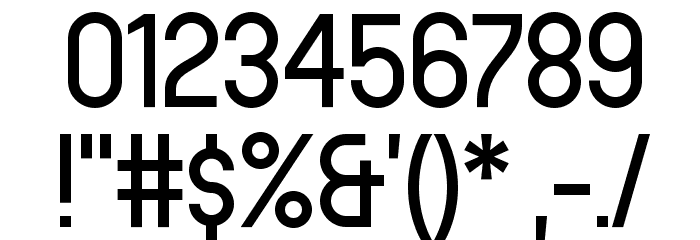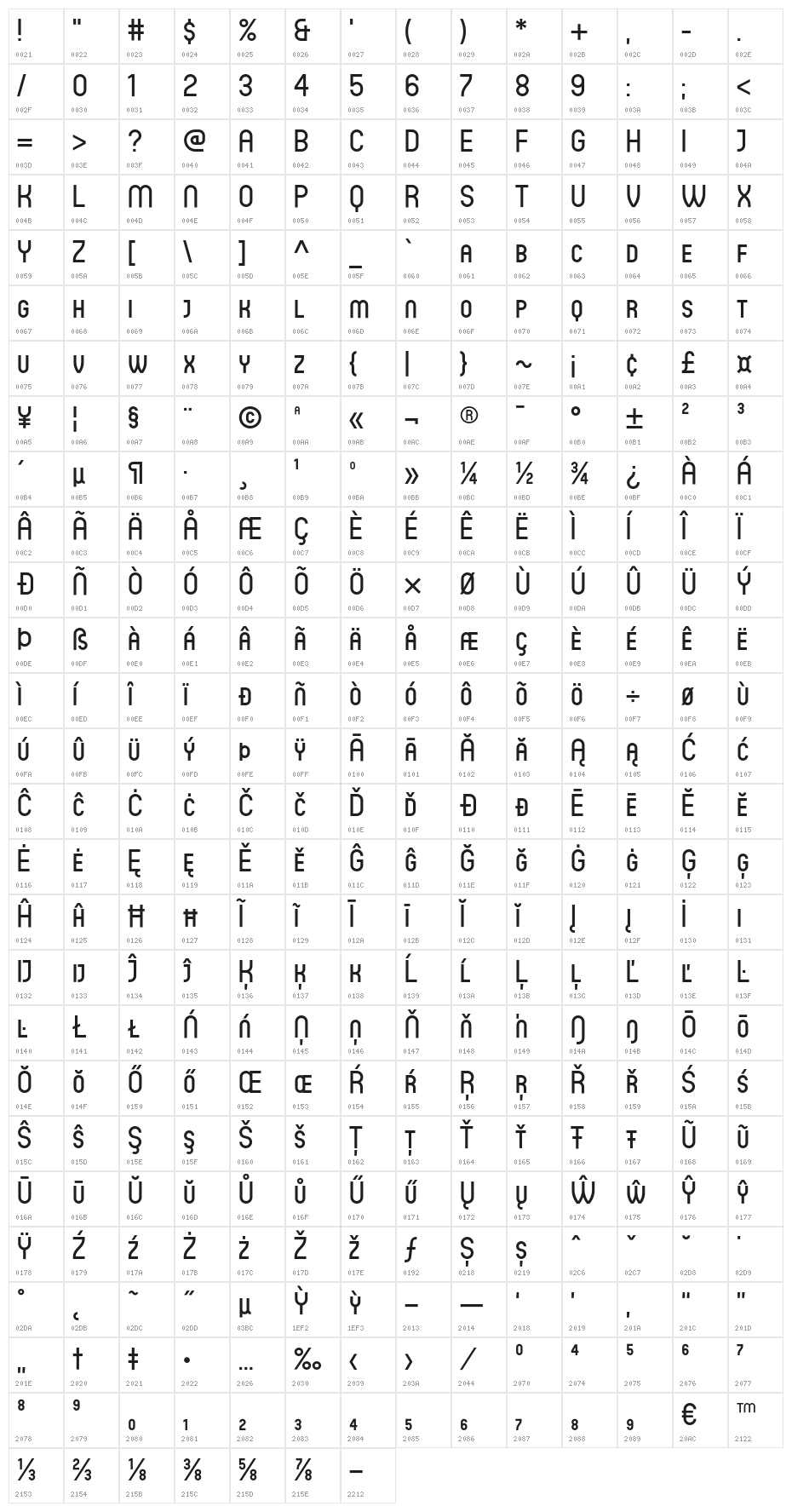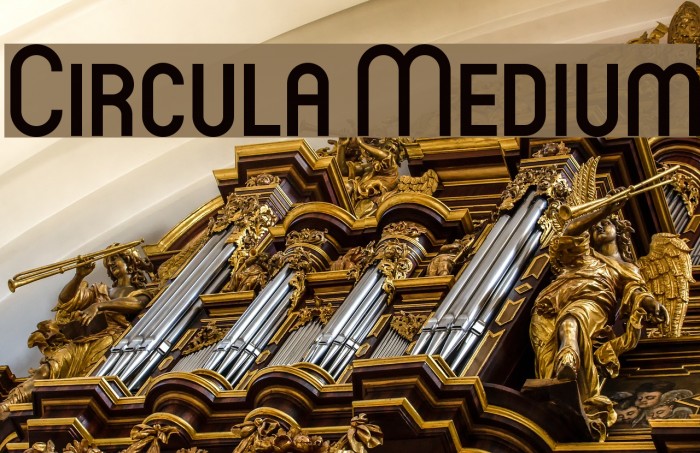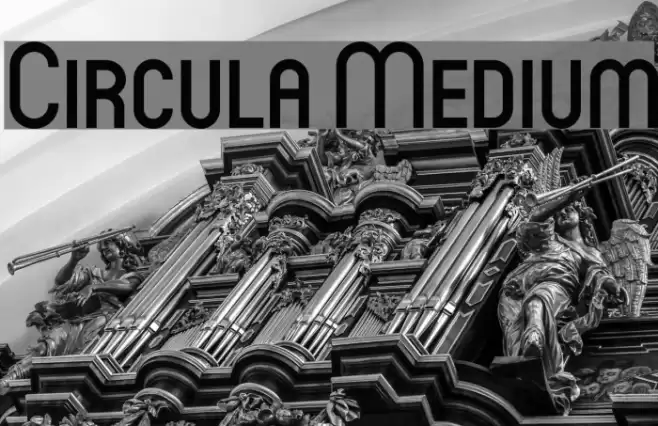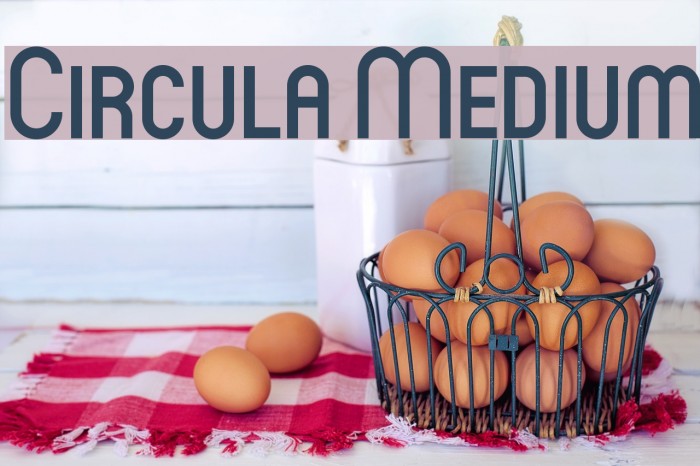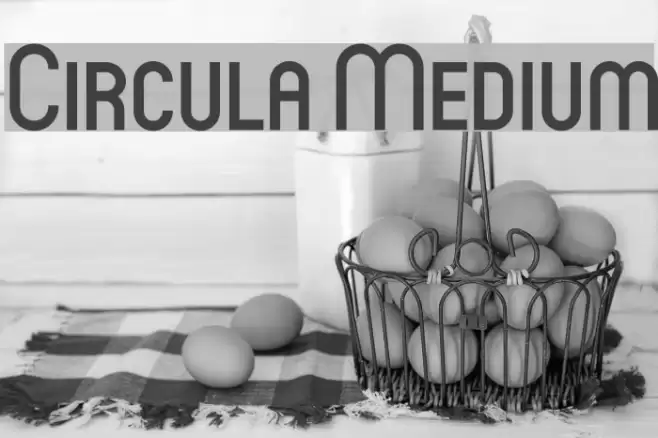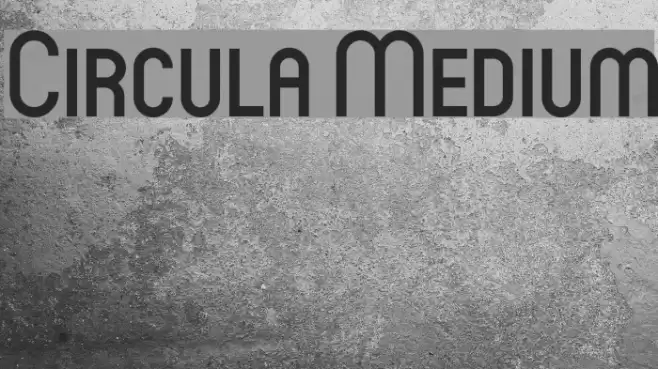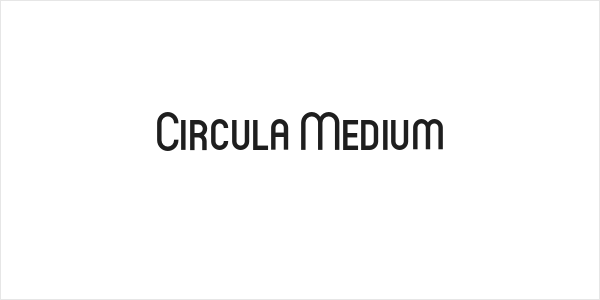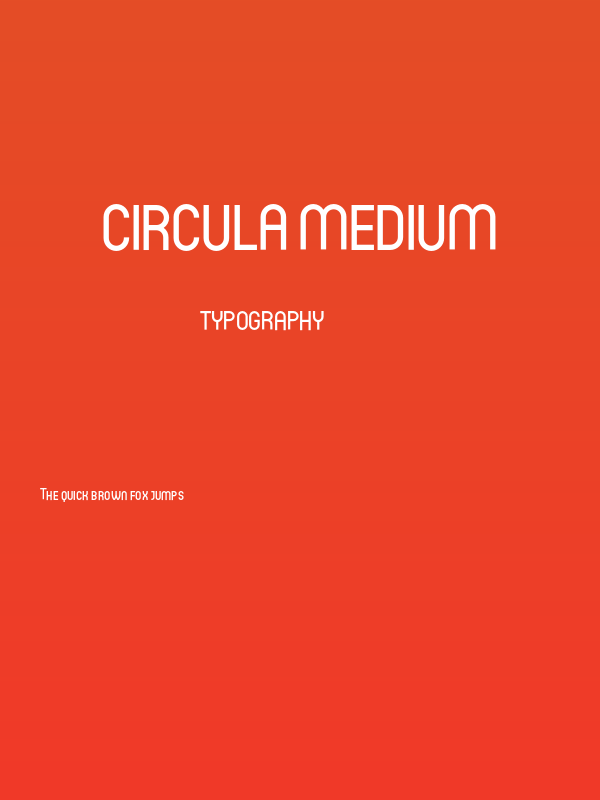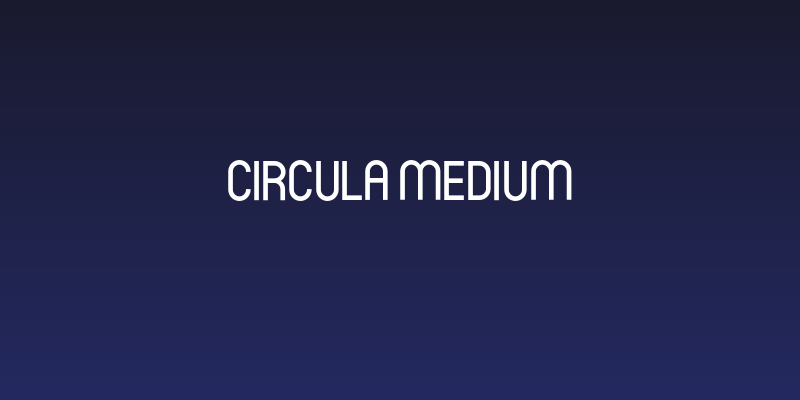
Circula Medium Font
Circula Medium Description
This font features a clean, geometric design with rounded edges, giving it a modern and approachable appearance. The characters are uniform in width, contributing to a balanced and harmonious look. The uppercase and lowercase letters maintain a consistent style, with smooth curves and straight lines that enhance readability. The numerals and special characters are designed to match the overall aesthetic, ensuring a cohesive visual experience. This font's simplicity and clarity make it versatile for various design applications.